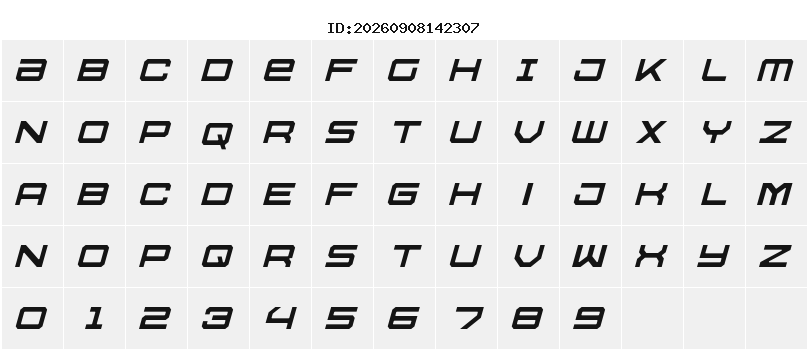
U.S.S. Dallas Light Italic Preview
• Font Name: U.S.S. Dallas Light Italic
• Font Style: Light Italic
• Full Font Name: U.S.S. Dallas Light Italic
About U.S.S. Dallas Light Italic.ttf
U.S.S. Dallas Light Italic.ttf is a modern, elegant sans-serif font designed for ultimate readability and visual harmony. Perfect for branding, headlines, web design, and print materials.